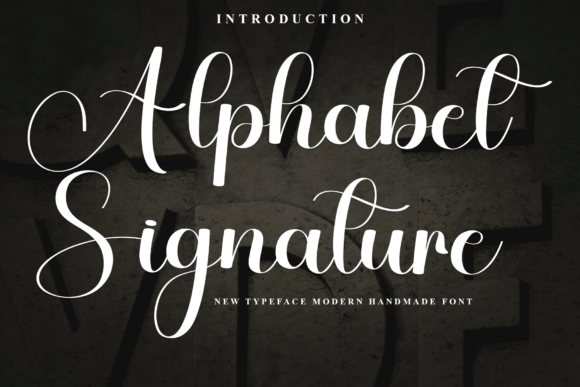
Unleashing Creativity with Alphabet Signature Font
As a designer, there’s nothing quite like the thrill of bringing a project to life. You’ve poured over inspiration boards, crafted a concept, and finally, it’s time to put your vision into words – literally. The right font can make all the difference in conveying your message and capturing the essence of your design. That’s where the Alphabet Signature Font comes in – a charming, hand-drawn typeface that exudes warmth and friendliness.
Perfect for personal projects, invitations, and social media graphics, the Alphabet Signature Font adds a fun and unique touch to any design. With its round, playful strokes, this font is sure to create a relaxed and approachable feel that resonates with your audience. Whether you’re a seasoned pro or just starting out, the Alphabet Signature Font is an invaluable asset in your design toolkit.
Alphabet Signature Font Key Features
• Unique Characteristics: Includes a range of stylish and elegant alphabets, perfect for signatures, logos, and branding
• Script Options: Offers various script options, including cursive, script, and handwritten styles
Alphabet Signature Font Review
Overall, I think the Alphabet Signature Font is a decent option for those who want a bold and playful font. Here are some things that I like about it:
• ✨ It’s extremely legible, even at small sizes, which is great for titles and headings.
• ✨ The font has a lot of personality and is perfect for designs that need a touch of whimsy.
• ✨ The font is highly customizable, with many options for adjusting the style and weight.
However, there are some limitations that I think are worth mentioning:
• ⚠️ The font may be too bold for some designs, and it can be overwhelming if used excessively.
• ⚠️ Some characters, such as the lowercase ‘a’ and ‘e’, can look a bit awkward.
• ⚠️ The font may not be suitable for formal or professional designs, as it can come across as too casual.
Overall, I think the Alphabet Signature Font is a good option for designers who want to add some personality to their work. However, it may not be the best choice for every project, and it’s worth considering the limitations before using it extensively.
Getting the Most Out of Alphabet Signature Font
For a unique and personalized look, try combining Alphabet Signature Font with other creative elements, such as illustrations or graphics. Experiment with different font sizes and colors to create visual interest.
Alphabet Signature Font is ideal for:
• Personalized stationery and invitations
• Business cards and branding materials
• Wedding invitations and decor
Alternatives to Alphabet Signature Font
Great Vibes is a beautiful, handwritten script font that is perfect for adding a touch of elegance and sophistication to your designs. It is ideal for use in invitations, wedding stationery, and other special occasion materials. Great Vibes has a more refined and polished look compared to Alphabet Signature Font, making it a great choice for high-end designs.
Pacifico is a stunning, modern script font that is perfect for creating a beachy, laid-back vibe. It is ideal for use in beach-themed designs, outdoor advertisements, and other projects that require a relaxed and casual tone. Pacifico has a more flowing and organic feel compared to Alphabet Signature Font, making it a great choice for designs that require a sense of movement and fluidity.
Alex Brush is a elegant, handwritten script font that is perfect for adding a touch of sophistication and refinement to your designs. It is ideal for use in high-end branding, luxury packaging, and other projects that require a sense of elegance and sophistication. Alex Brush has a more refined and polished look compared to Alphabet Signature Font, making it a great choice for designs that require a high level of sophistication.